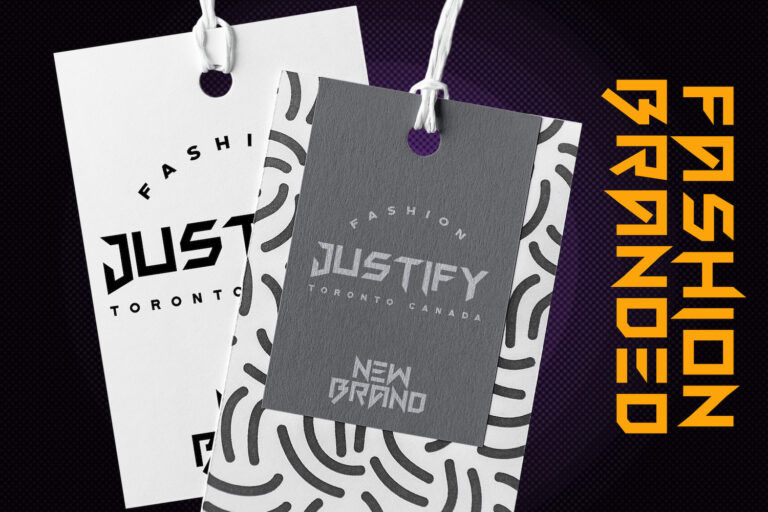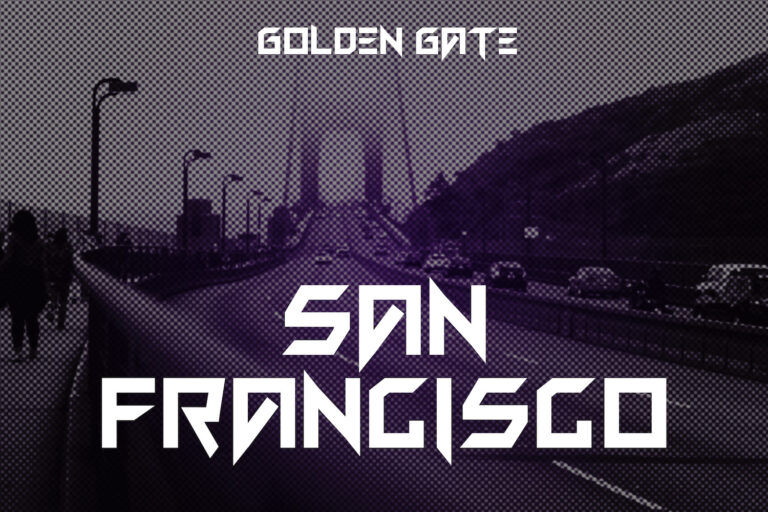
The Fun Games Futuristic Display Font delivers a bold, angular design with a strong tech-meets-sports energy. Featuring sharp cuts, geometric angles, and high-impact all-caps characters, this font commands attention from the very first glance. Its distinctively modern structure and dynamic visual rhythm make it an ideal choice for settings where power, speed, and digital flair are key. The styling feels aggressive yet playful—perfect for futuristic branding that targets younger, energetic audiences.
Fun Games thrives in esports logos, video game covers, motocross posters, sports team merch, sci-fi movie titles, or fashion brands that embrace bold, unconventional aesthetics. The font’s sharp letterforms and tightly spaced characters create an intense presence in headlines and titles, especially when layered with outlines, shadows, or gradients. Despite its futuristic lean, the font maintains solid legibility, even when used in compressed layouts or layered with background textures.
Whether you’re working on a game UI, YouTube thumbnail, or action-packed event promo, the Fun Games Futuristic Display Font is engineered to amplify impact with a confident, digital edge.